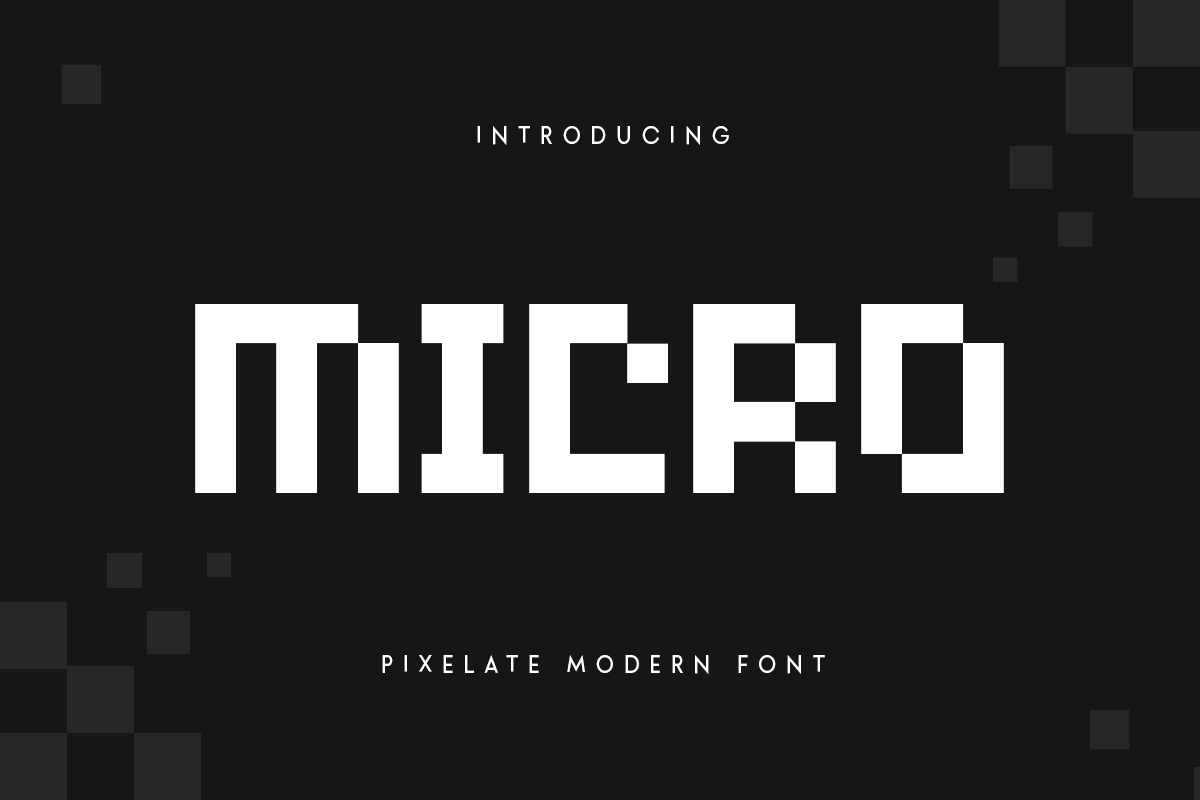
Micro - Pixelate Modern Font
Transform your designs with Micro's authentic pixelated charm, crafted for NFT projects, retro gaming, and bold poster designs. This modern pixelate font delivers that perfect old-school aesthetic with a contemporary twist, making it ideal for NFT artwork, game interfaces, and eye-catching headlines. Micro brings unique vintage gaming vibes to any project while maintaining excellent readability and style impact. Micro Pixelate Modern Font includes: 3 versatile file formats: .otf, .ttf, .woff Com...